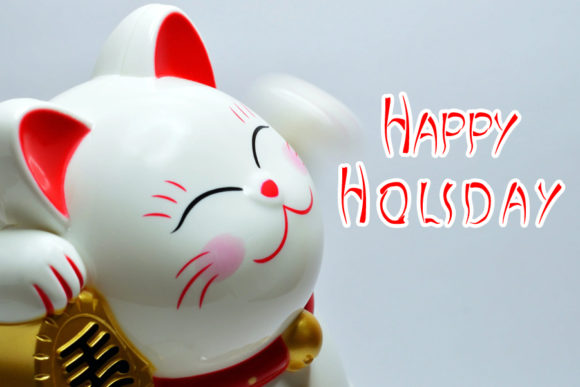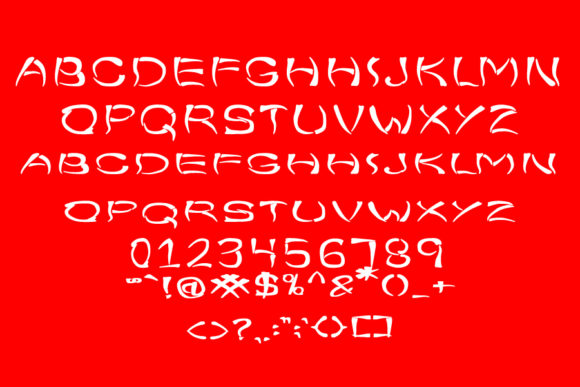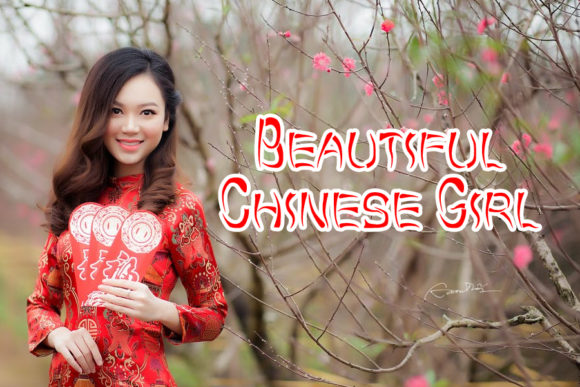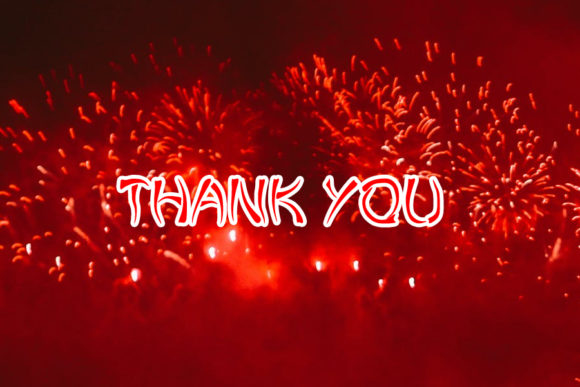
Welcome the Year of the Dragon with Chinese New Year Font
Chinese New Year, also known as the Spring Festival, is a significant holiday celebrated by millions of people around the world. It’s a time for renewal, family reunions, and vibrant decorations. For designers and crafters, it’s an opportunity to create stunning visuals that capture the essence of this festive season. One of the key elements in creating eye-catching designs is the font used. That’s where the Chinese New Year Font comes in – a fun, bold, and genuine display font that’s sure to make your creations stand out.
What is Chinese New Year Font?
The Chinese New Year Font is a simple yet striking display font designed to add a strong visual effect to your designs. Its bold and genuine style makes it perfect for creating festive and celebratory content. Whether you’re working on a project for social media, a greeting card, or a promotional material, this font will instantly elevate your design and make it more appealing than others.
Key Features of Chinese New Year Font
- Fun and Bold Style: The Chinese New Year Font boasts a fun and bold style that’s sure to grab attention. Its unique design makes it perfect for creating eye-catching headlines and titles.
- Simple yet Effective: Despite its simplicity, this font packs a strong visual punch. Its clean lines and minimal design elements make it easy to read and understand, while still conveying a sense of festivity and celebration.
- Genuine Display Font: The Chinese New Year Font is a genuine display font, designed specifically for showcasing your creativity and style. Its authentic feel makes it perfect for designs that require a personal touch.
- Keep it Simple: Remember, the Chinese New Year Font is a simple yet effective font. Keep your design simple and clean to let the font do the talking.
The Chinese New Year Font is a fun, bold, and genuine display font that’s perfect for designers and crafters looking to create stunning visuals for the festive season. Its simple yet effective design makes it easy to use and versatile, while its bold and authentic style ensures that your creations will stand out from the crowd. So why not give it a try and welcome the Year of the Dragon in style?